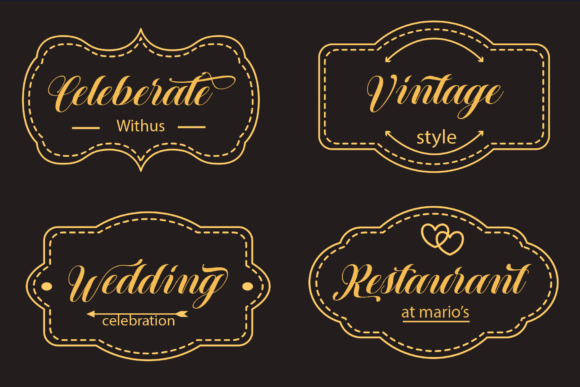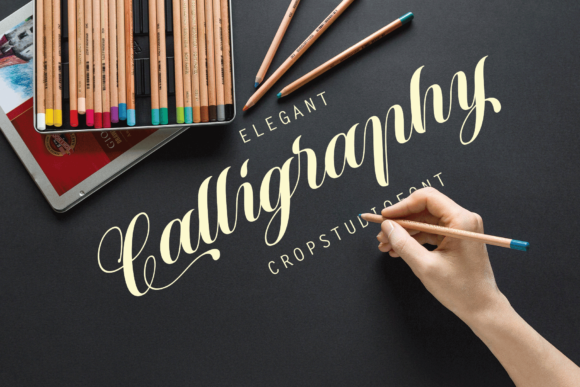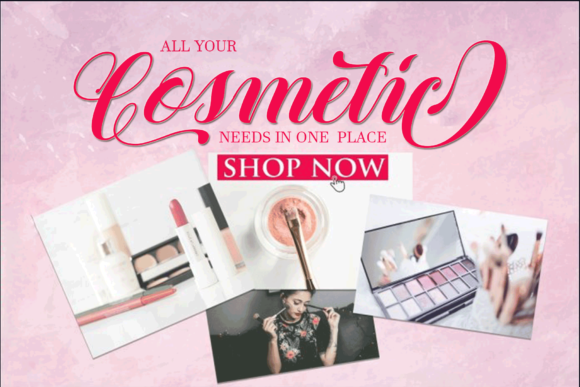
Adding a Touch of Elegance to Your Designs
There’s nothing quite like the thrill of creating something from scratch – the blank page, the blank canvas, the blank slate. It’s a feeling of infinite possibility, and it’s exactly this feeling that drives designers to push the boundaries of what’s possible. For many of us, it starts with the right font. And that’s where the Belanttara Font comes in – a beautiful, elegant script that’s sure to add a touch of magic to any design project.
Whether you’re working on a wedding invitation, a thank you card, or a business logo, the Belanttara Font is the perfect choice. Its PUA encoding means that you can access all of the glyphs and swashes with ease, giving you the freedom to get creative and experiment with different looks and feels. And for designers, that’s what it’s all about – the ability to bring your vision to life with precision and flair.
Key Features of Belanttara Font
- Font Family: Belanttara is a unique, hand-drawn script font designed to evoke a sense of elegance and sophistication.
- Character Set: Includes a comprehensive set of characters, including uppercase and lowercase letters, numerals, and punctuation marks.
- Unique Characteristics: Belanttara features a distinctive, flowing script style with subtle variations in letterforms, giving it a personal and handwritten feel.
Belanttara Font Review
Overall, I found the Belanttara font to be a decent option for design projects. ✨ It has a unique, elegant style that can add a touch of sophistication to text-based elements. ✨ The font is highly legible, even at smaller font sizes, which makes it suitable for body text, headings, and titles.
One of the standout features of the Belanttara font is its extensive language support. It covers a wide range of languages, including Latin, Cyrillic, and Greek scripts. ✨ This makes it an excellent choice for global design projects or those requiring multilingual support.
However, there are a few limitations to consider. ⚠️ The font’s design can feel somewhat generic and lacks a strong personality, which may not make it stand out in a crowded design landscape. ⚠️ Additionally, the font’s weight system is somewhat limited, with only a few weights available, which may not provide enough flexibility for designers who require a range of font weights.
- ✨ Unique, elegant style
- ✨ Highly legible, even at small font sizes
- ✨ Extensive language support
- ⚠️ Generic design may lack personality
- ⚠️ Limited weight system
The Belanttara font is a solid, dependable option for designers. While it may not offer anything revolutionary or groundbreaking, it’s a well-crafted font that can help to elevate text-based elements in a design project. With its elegant style, extensive language support, and high legibility, it’s definitely worth considering for your next design project.
Tips for Getting the Most Out of the Belanttara Font
1. Use the Belanttara font for headings and titles to add a touch of elegance and sophistication.
2. Combine the Belanttara font with other fonts to create a unique and visually appealing design.
3. Experiment with different font sizes and styles to create a sense of hierarchy and emphasis.
1. Wedding invitations and stationery
2. Luxury branding and packaging
3. Fine art and creative projects
Alternatives to Belanttara Font for Designers
Lato is a modern sans-serif font that is highly legible and versatile. It is ideal for use in digital products, such as websites, apps, and software. Lato is similar to Belanttara in its clean and minimalist aesthetic, but has a more geometric and technical feel.
Open Sans is a popular sans-serif font that is highly legible and easy to read. It is ideal for use in digital products, such as websites, apps, and software. Open Sans is similar to Belanttara in its clean and minimalist aesthetic, but has a more rounded and friendly feel.